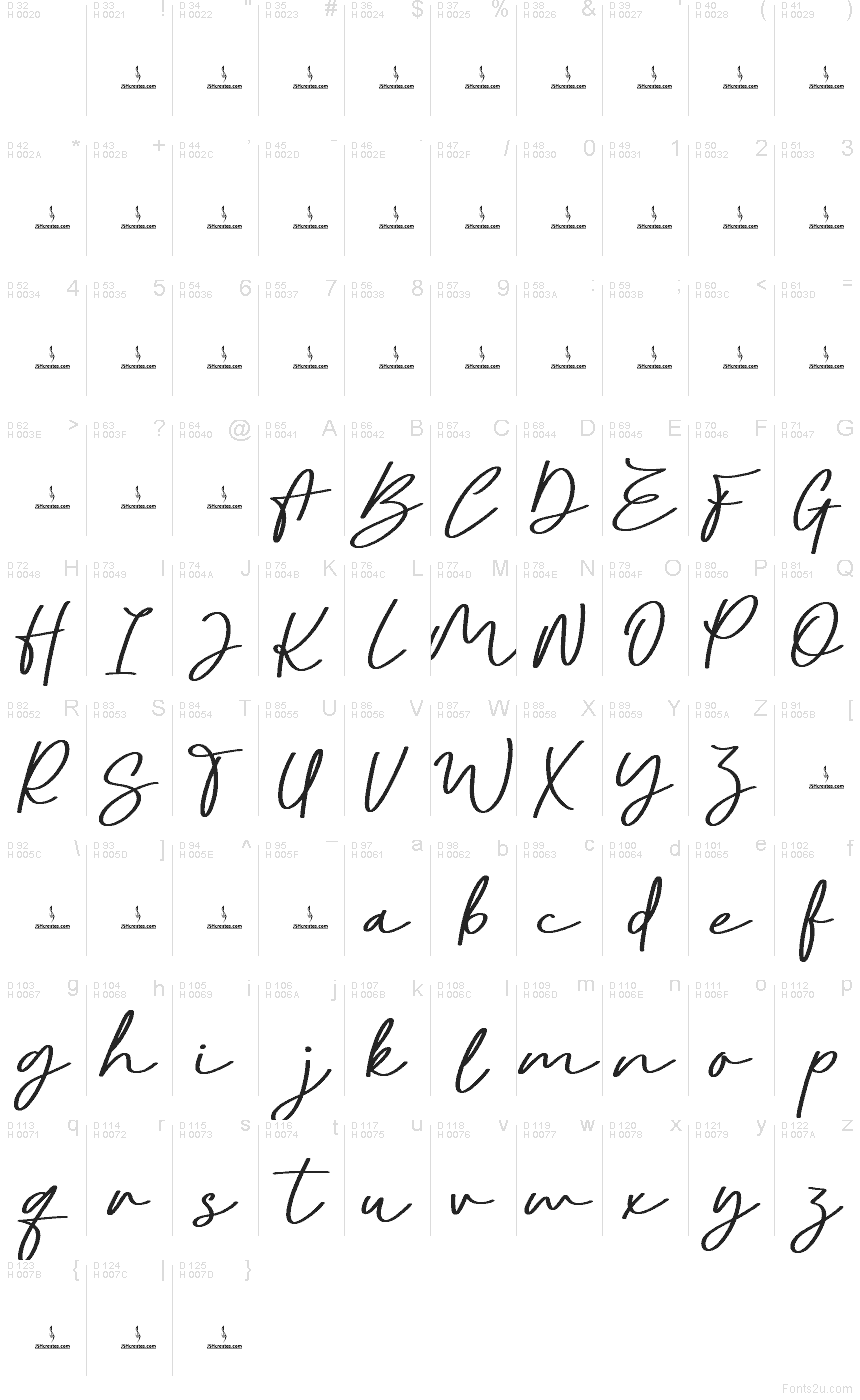
Birthday Wishes by JSHcreates is a free signature script with sweeping, high-contrast strokes and an easy handwritten slant. Long lead-in strokes and broad loops give the letters a lively sense of motion. The joins are fluid and assured.
Packaging offers a strong setting for its personal, celebratory manner, especially on confectionery boxes, gift tags, and party favors. It also suits invitations and social graphics aimed at birthdays, showers, or small gatherings, where the loose penmanship can echo a handwritten greeting rather than formal calligraphy.